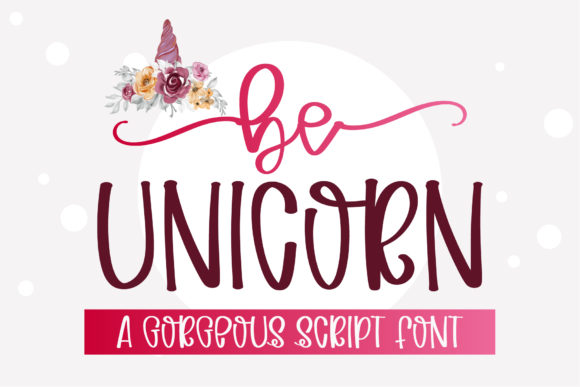
Introducing Be Unicorn Font: The Ultimate Choice for Charming Designs
Are you looking for a font that can add a touch of magic to your design projects? Look no further than Be Unicorn Font, a beautiful and friendly handwritten font with a romantic theme. This stunning font is perfect for any design project that requires a charming appearance, from wedding invitations to branding and marketing materials.
What is Be Unicorn Font?
Be Unicorn Font is a type of handwritten font that is designed to evoke a sense of romance and whimsy. It features flowing lines and curves that give it a soft, feminine touch. The font is perfect for designers who want to add a personal and elegant touch to their work.
One of the unique features of Be Unicorn Font is its ability to convey a sense of fantasy and imagination. The font’s playful and charming appearance makes it perfect for designs that require a touch of magic, such as children’s books, greeting cards, and social media graphics.
Key Features of Be Unicorn Font
- Handwritten style: Be Unicorn Font has a natural, handwritten look that gives it a personal and authentic feel.
- Romantic theme: The font’s flowing lines and curves give it a romantic and whimsical touch.
- Charming appearance: Be Unicorn Font is perfect for designs that require a charming and elegant appearance.
- Versatile: The font can be used for a wide range of design projects, from wedding invitations to branding and marketing materials.
Here are some ideas for using Be Unicorn Font in your design projects:
- Wedding invitations: Be Unicorn Font is perfect for wedding invitations, as it adds a touch of romance and elegance to the design.
- Branding and marketing materials: The font can be used for branding and marketing materials, such as logos, business cards, and brochures.
- Social media graphics: Be Unicorn Font is great for social media graphics, such as Facebook posts and Instagram stories.
- Children’s books: The font’s playful and charming appearance makes it perfect for children’s books and other kids’ content.
Benefits of Using Be Unicorn Font
There are many benefits to using Be Unicorn Font in your design projects. Here are a few:
- Unique and creative: Be Unicorn Font is a unique and creative font that can help your designs stand out from the crowd.
- Elegant and sophisticated: The font’s elegant and sophisticated appearance makes it perfect for designs that require a high-end look.
- Easy to read: Be Unicorn Font is easy to read, even at small sizes, making it perfect for body text and other long-form content.
- Customizable: The font can be customized to fit your design needs, including adjusting the size, color, and style.
Tips for Getting the Most Out of Be Unicorn Font
Here are some tips for getting the most out of Be Unicorn Font:
- Use it sparingly: Be Unicorn Font is a bold font, so it’s best to use it sparingly to avoid overwhelming the design.
- Pair it with other fonts: The font pairs well with other fonts, such as sans-serif fonts, to create a unique and interesting design.
- Experiment with colors: Be Unicorn Font looks great in a variety of colors, so don’t be afraid to experiment and find the perfect color for your design.
- Pay attention to spacing: Make sure to pay attention to spacing and kerning to ensure that the font looks its best.
Be Unicorn Font is a beautiful and friendly handwritten font with a romantic theme. Its charming appearance and versatile design make it perfect for a wide range of design projects, from wedding invitations to branding and marketing materials. With its unique and creative style, Be Unicorn Font is sure to add a touch of magic to your designs.